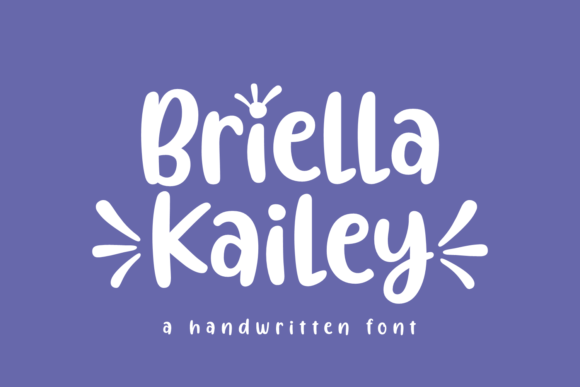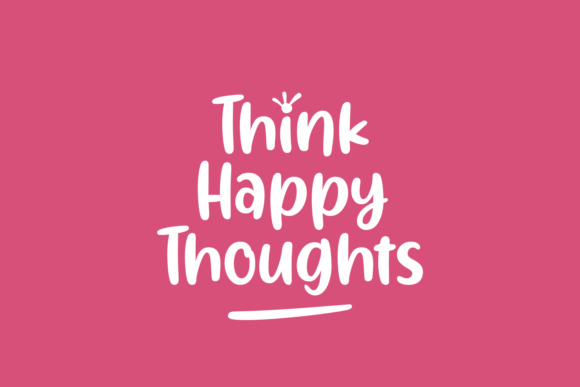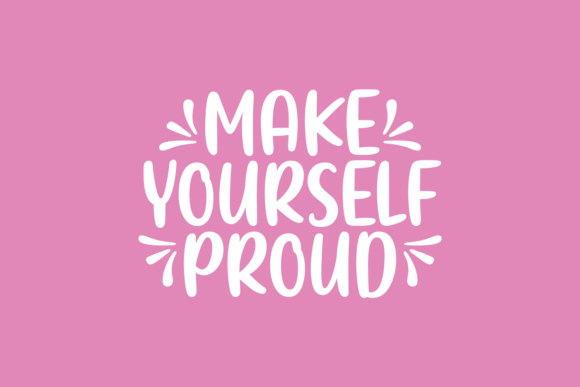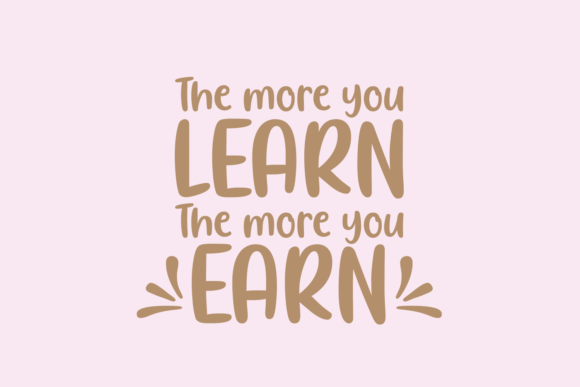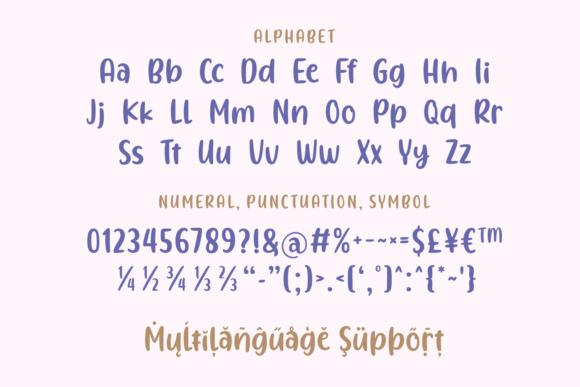
Briella Kailey Font
About Briella Kailey Font
Briella Kailey is a cool and natural handwritten font. This gentle font will look gorgeous on a variety of design ideas. It will add a joyful and romantic touch to each of your projects!